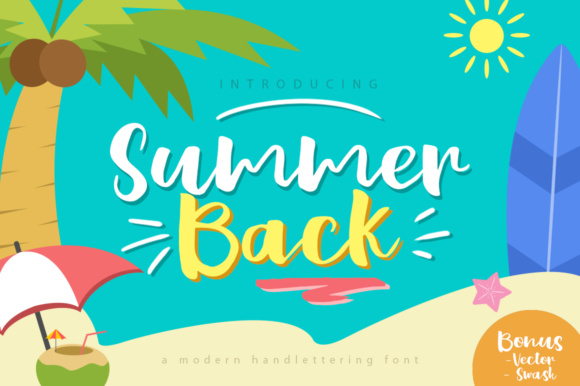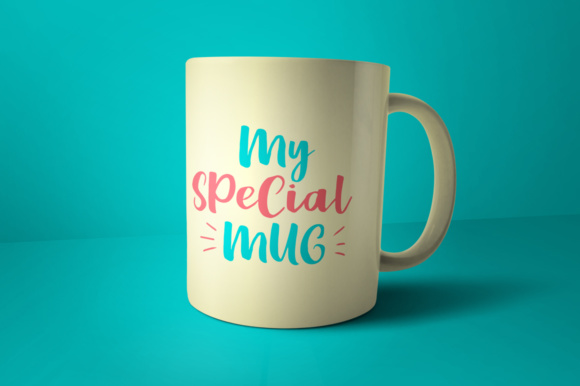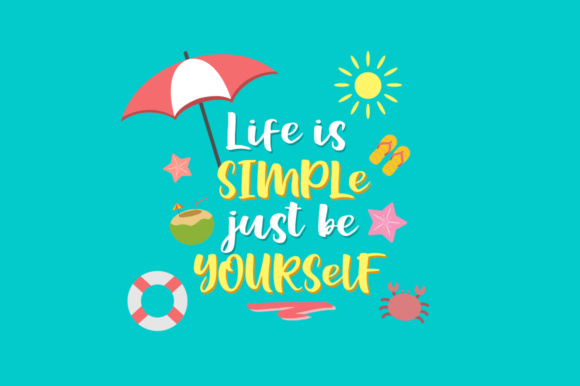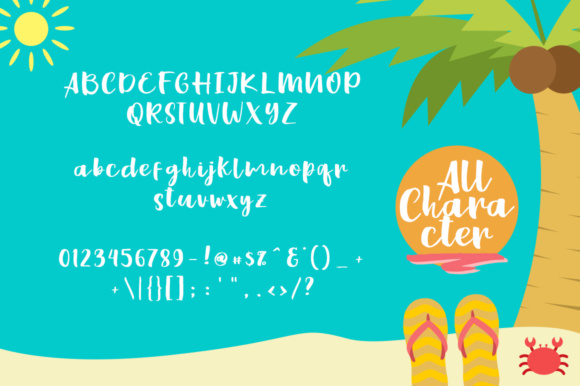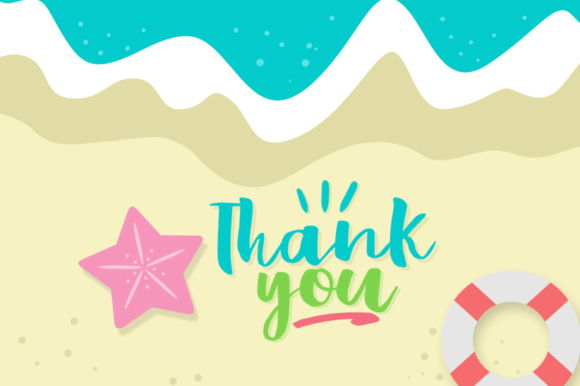
Summer Back Font
About Summer Back Font
Summer Back is a beautiful, bold script typeface with a cheeriness and charming appeal! This font will give your projects a fun look, and works well to add a lighthearted appeal to your designs.